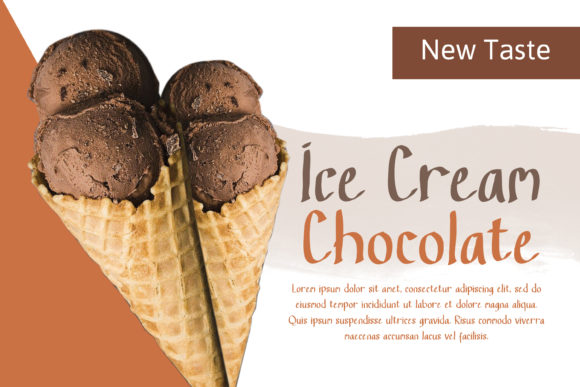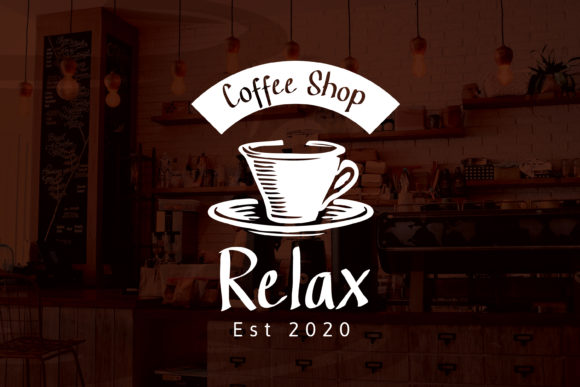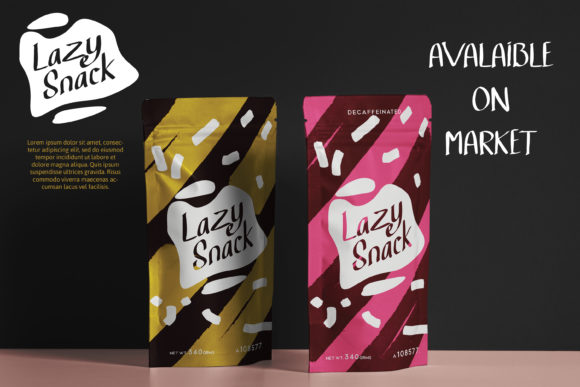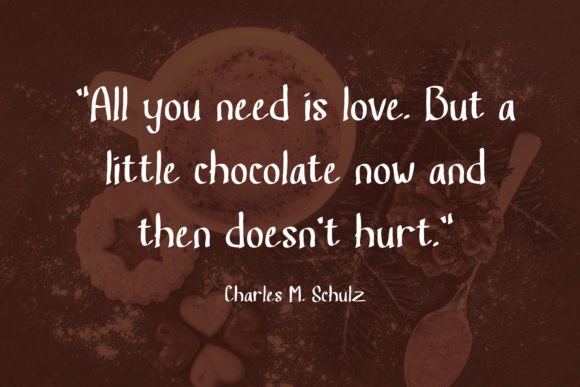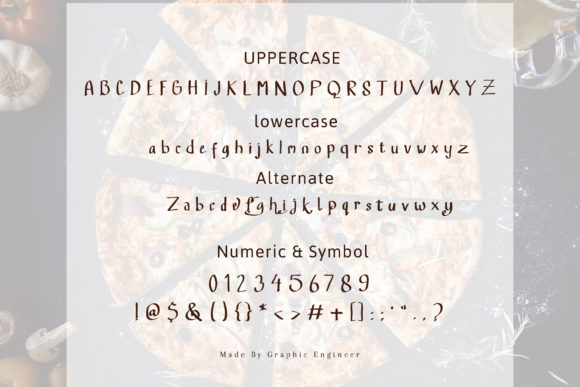
Introducing Caramelove Font: The Sweetest Addition to Your Design Arsenal
Are you tired of using the same old fonts in your designs? Look no further than Caramelove Font, a sweet, all-round, and flexible handwritten font that’s sure to add a touch of warmth and romance to any project. In this article, we’ll dive into the world of Caramelove Font, exploring its features, benefits, and endless possibilities for designers and crafters alike.
A Font that’s as Sweet as it is Versatile
Caramelove Font is a true gem in the world of typography. Its handwritten style exudes a sense of warmth, friendliness, and approachability, making it perfect for a wide range of design applications. Whether you’re working on a branding project, a wedding invitation, or a craft tutorial, Caramelove Font is sure to bring a smile to your audience’s faces.
One of the standout features of Caramelove Font is its incredible versatility. With its flexible and all-round design, this font can be used in a multitude of contexts, from formal to informal, and from digital to print. Whether you’re creating a logo, a social media graphic, or a printable art piece, Caramelove Font is sure to adapt seamlessly to your design needs.
Warm, Romantic, and Jolly: The Personality of Caramelove Font
So, what sets Caramelove Font apart from other fonts out there? For starters, its warm and romantic personality is unmatched. The font’s handwritten style has a distinctly personal feel, as if it were written with love and care. This makes it perfect for designs that require a touch of personality and whimsy.
But Caramelove Font isn’t just warm and romantic – it’s also jolly and playful. The font’s curves and swashes have a lively, energetic feel that’s sure to add a dash of fun to any design. Whether you’re creating a children’s party invitation or a social media graphic, Caramelove Font is sure to bring a sense of joy and excitement to your project.
Endless Variations: The Fun of Exploring Caramelove Font
One of the most exciting things about Caramelove Font is the endless variations it offers. With its flexible design and range of swashes, you can create countless unique combinations to suit your design needs. Whether you’re a designer, a crafter, or simply a DIY enthusiast, Caramelove Font invites you to experiment and explore its many possibilities.
From subtle variations in lettering to bold and dramatic swashes, Caramelove Font offers a world of creative possibilities. You can use it to create stunning headings, beautiful quotes, or even intricate illustrations. The more you experiment with Caramelove Font, the more you’ll discover its incredible potential and versatility.
So, who is Caramelove Font perfect for? In short, it’s ideal for anyone who loves to create, design, and craft. Whether you’re a professional designer, a DIY enthusiast, or a crafter, Caramelove Font offers a world of creative possibilities.
For designers, Caramelove Font offers a unique and versatile typography solution that’s perfect for branding, advertising, and marketing projects. Its warm and romantic personality makes it ideal for creating emotional connections with your audience.
For crafters, Caramelove Font offers a beautiful and flexible way to add a personal touch to your handmade creations. Whether you’re making printable art, crafting custom signs, or creating handmade cards, Caramelove Font is sure to add a touch of love and care to your projects.
| Author | Graphic Engineer |
In conclusion, Caramelove Font is a sweet, all-round, and flexible handwritten font that’s sure to delight designers and crafters alike. Its warm and romantic personality, combined with its versatility and endless variations, make it the perfect addition to any design arsenal.
So why not give Caramelove Font a try? With its ease of use and incredible creative potential, it’s sure to become your new favorite font. Whether you’re working on a professional project or a personal DIY endeavor, Caramelove Font is sure to bring a touch of sweetness and joy to your designs.